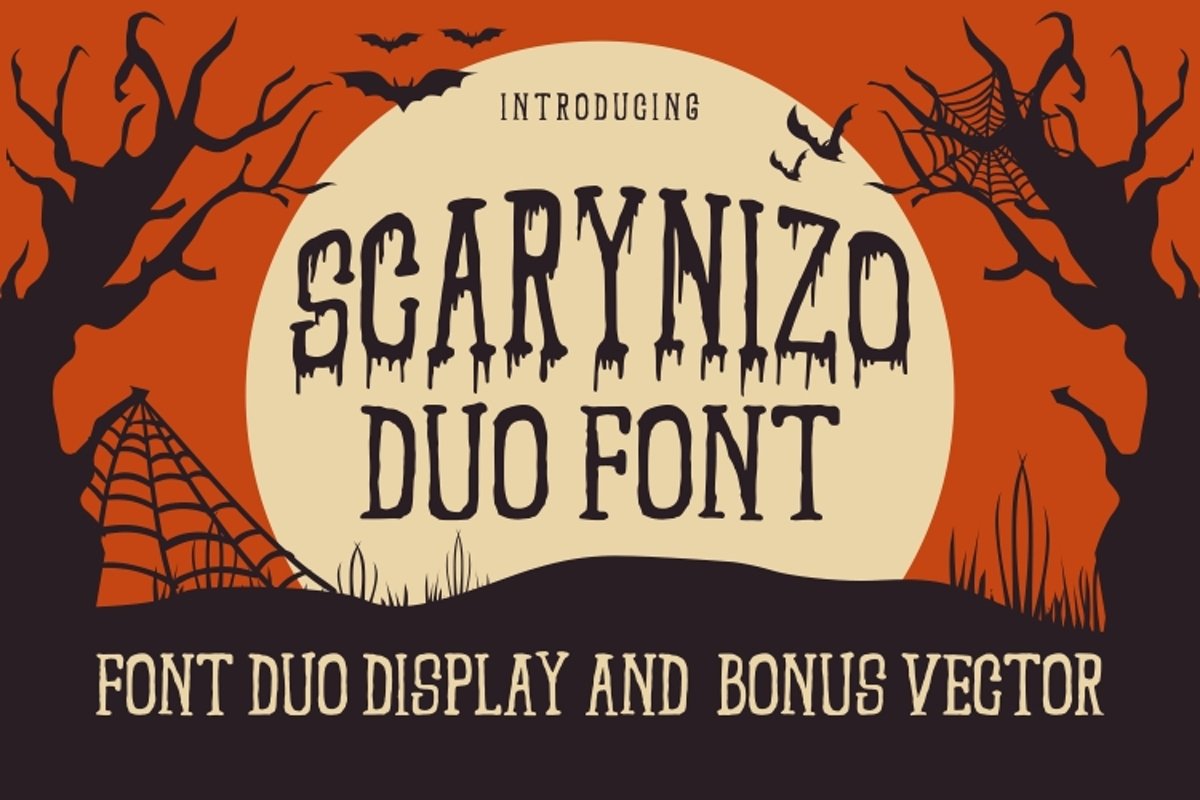
SCARYNIZO // FONT DUO
SCARYNIZO  a display font. This font
will looks awesome and amazing in many way to your latest project.
Serdane is perfect for many different
project such as logos & branding, invitation, stationery, wedding
designs, social media posts, advertisements, product packaging, product
designs, label, photography, watermark, special events or anything.